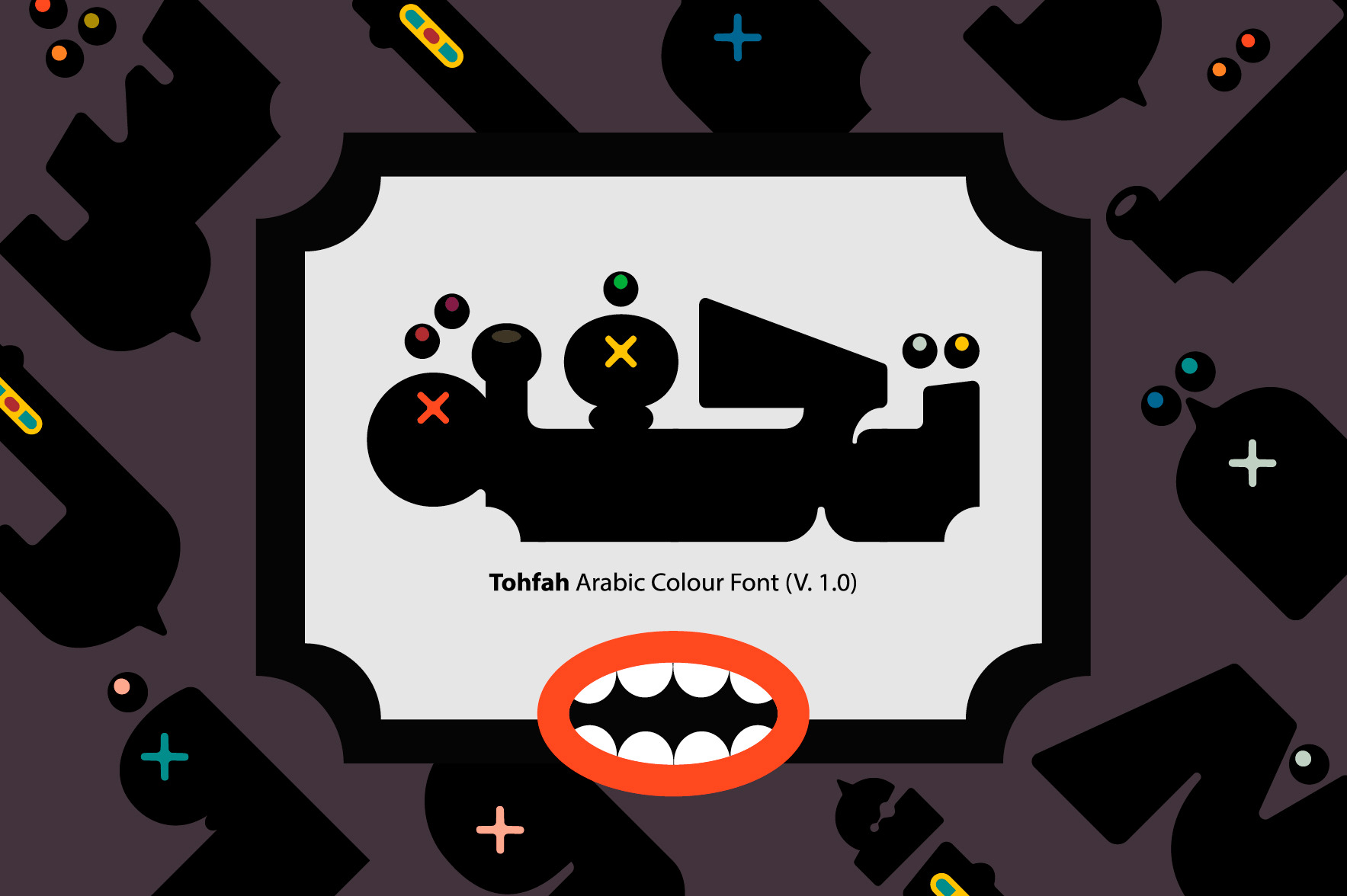
Tohfah - Arabic Colour Font
Tohfah (the Arabic for 'Masterpiece') is an Arabic display font that features an extraordinary letterform design combined with contemporary ornaments. Tohfah is an SVG-OpenType font that comes in vector formats (SVG-TTF and COLR-TTF), a raster format (SBIX) in addition to a basic Black version (OTF). This font is suitable for modern design projects including typography, logotypes, advertising and web. Tohfah supports Windows (10 or above), macOS (Mojave or above) and mobile applications.